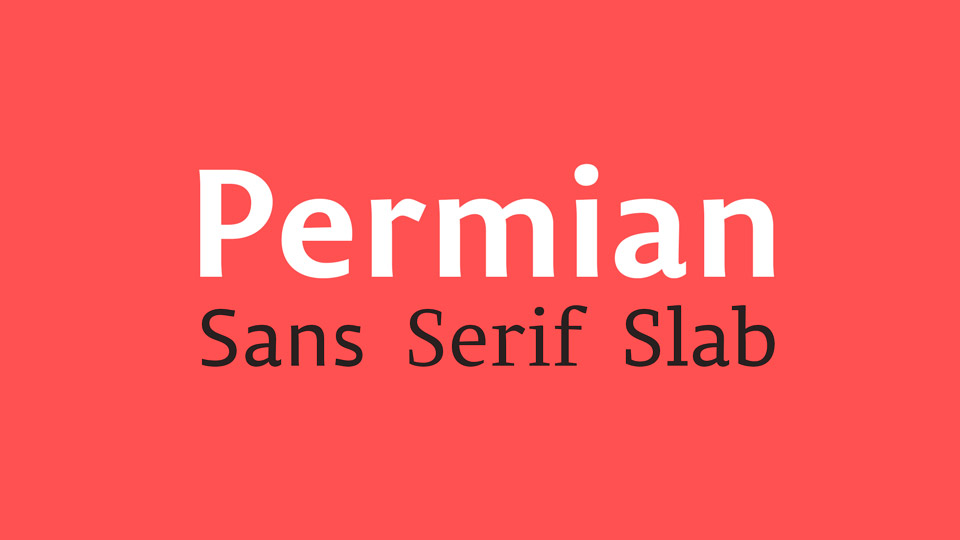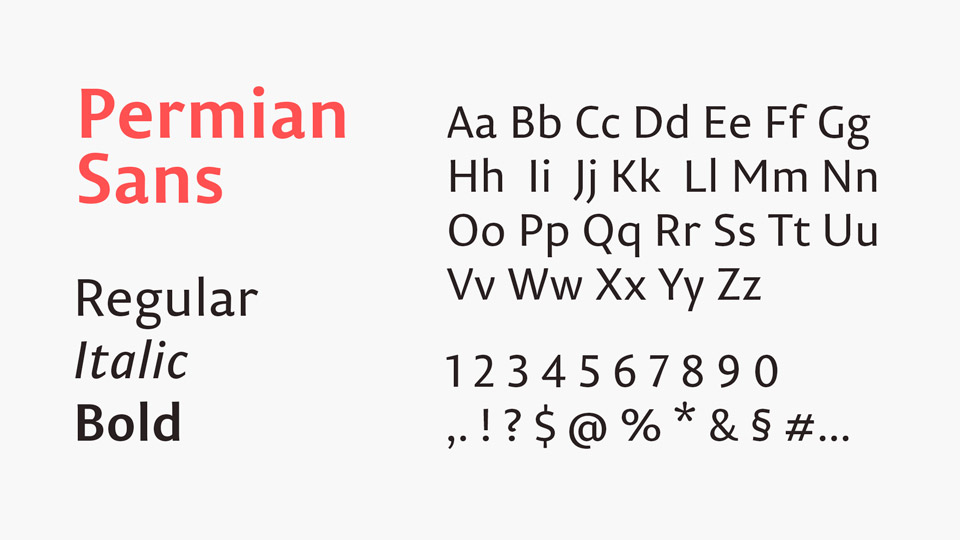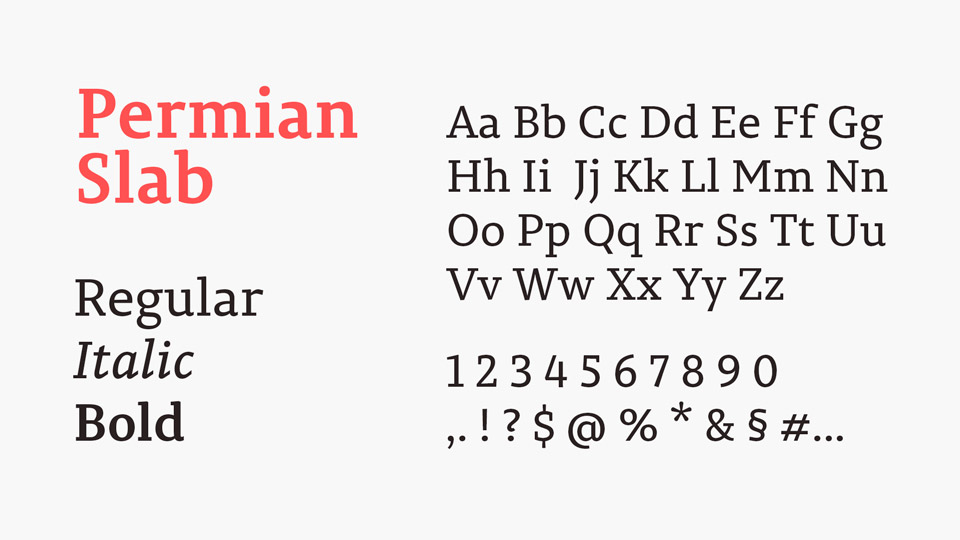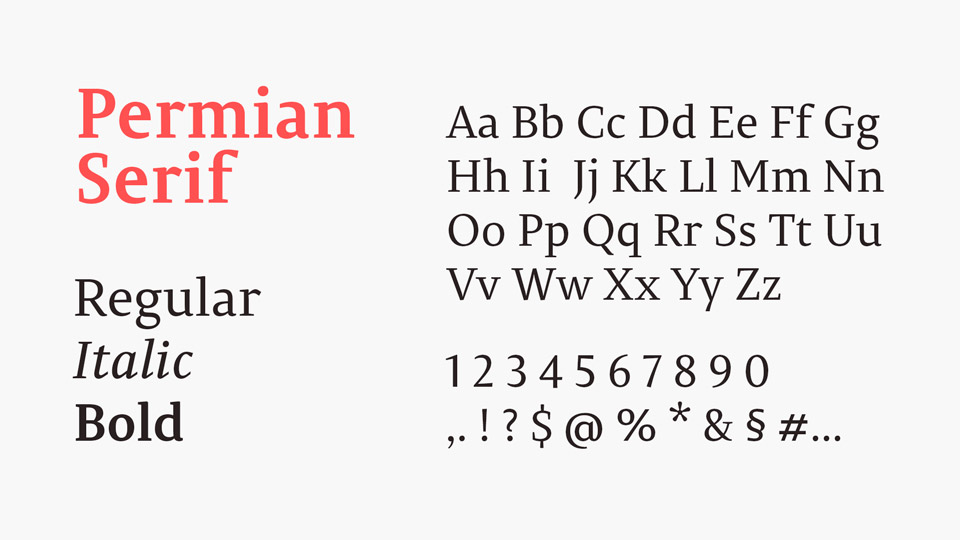
Permian is an energetic, modern and universal typeface for a wide range of design tasks. The font family composed of three different typefaces based on one graphic idea. Each of them has Regular, Bold and Italic styles. And each of them may work as a text typeface and as a display.
The graphic idea of Permian typeface is based on a combining calligraphy and constructive design of the contour. The humanistic sans version could partly remind a well-know Gill Sans (by Erik Gill, 1937), however it differs a lot and it is an independent and original typeface. It is recognizable by it’s simple graphic decisions, slightly serif-like constructions, and tiny angle of the contrast. Sans version is a hundred precent modern typeface, comfortable for modern reader: modern proportions, lack of bright historical look, accurate eyes catchers that help the typeface work in a different sizes. Simplicity and flexibility, calligraphy and controlling of a contours. Slab serif and serif versions are based on the same graphic ideas as a sans version. Serif version made mainly as a text typeface, the sans is mostly orientated on a headlines and display setting, and a slab serif version can be used in both ways.